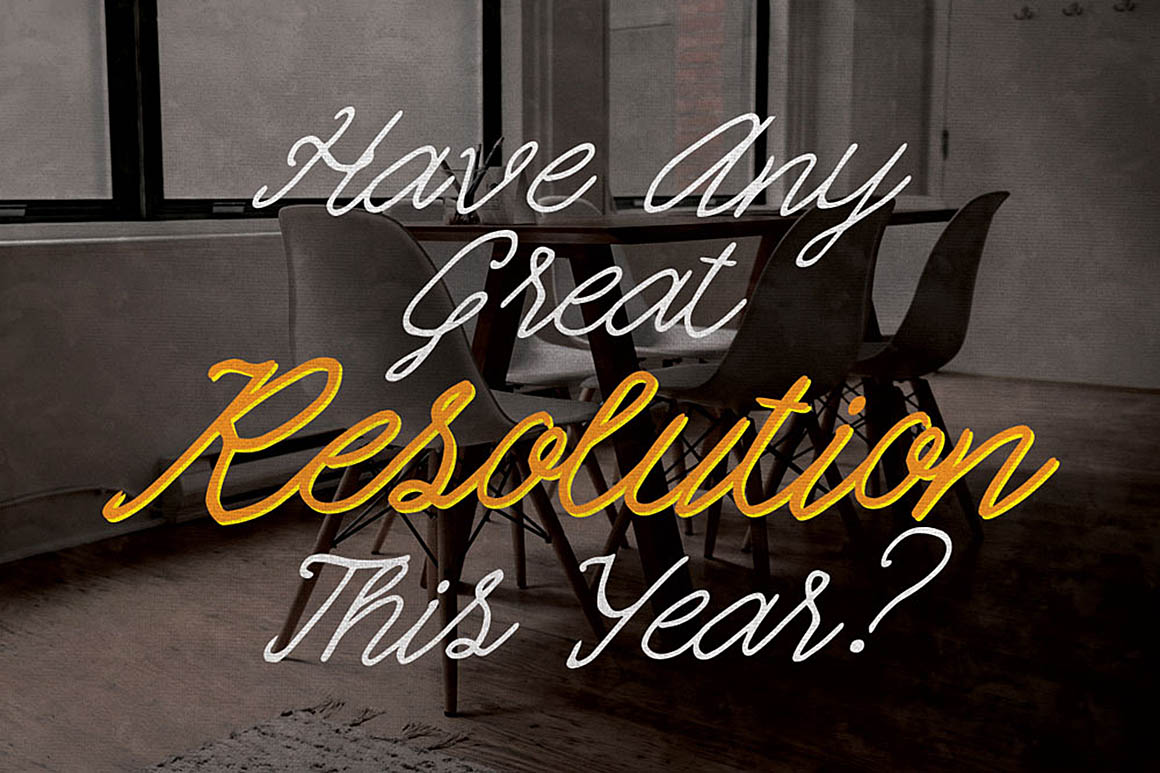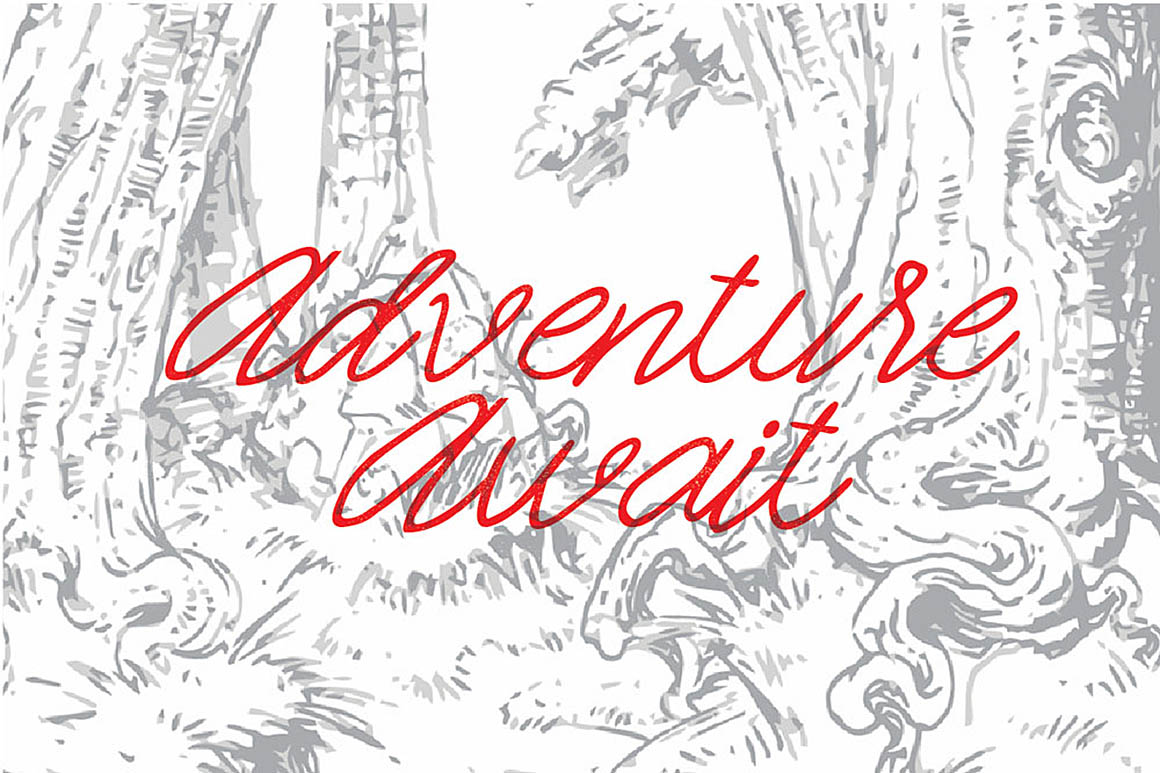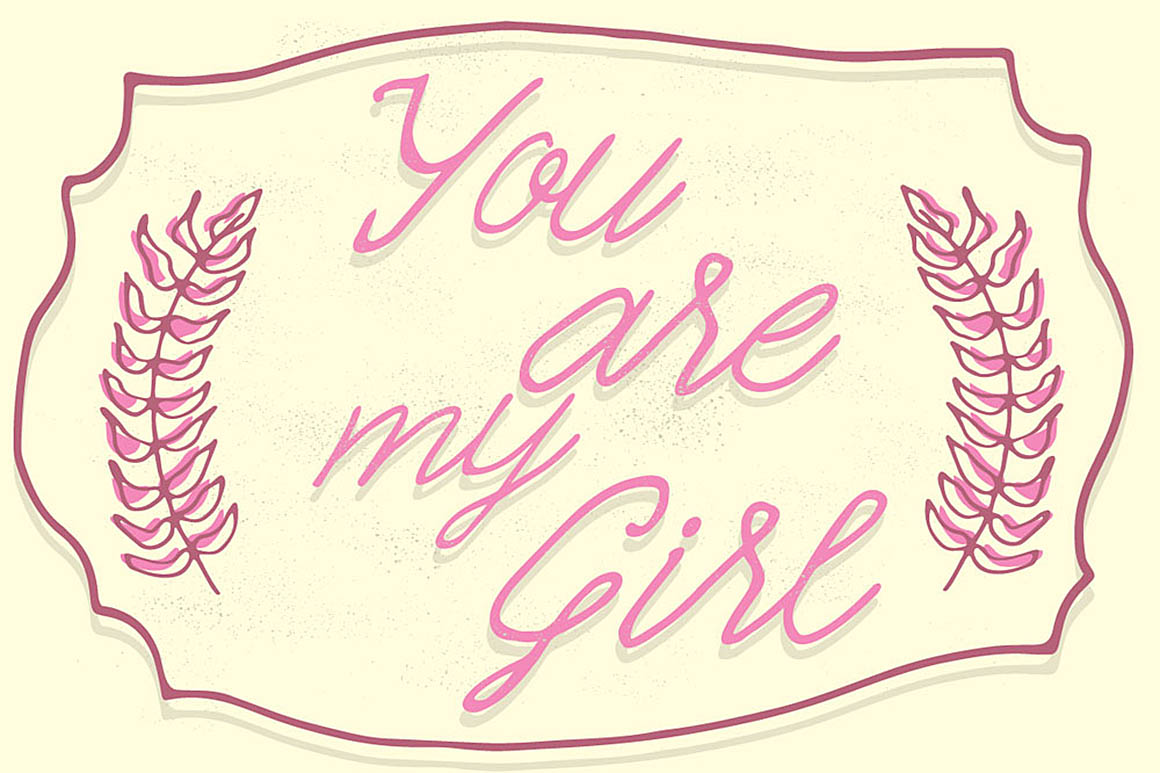
Quickline – Free Script Font
This cool & unique vintage style handdrawn script font is from Ian Mikraz. Great for your new vintage style artworks. Download & enjoy ;)